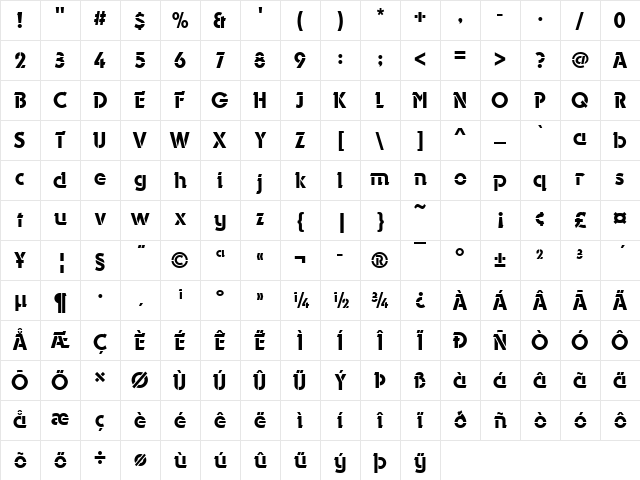
URWDyanaSteAltDMed Regular
Design Context for URWDyanaSteAltDMed
URWDyanaSteAltDMed is a composed and adaptable typeface that performs quietly and consistently across a wide range of design contexts.